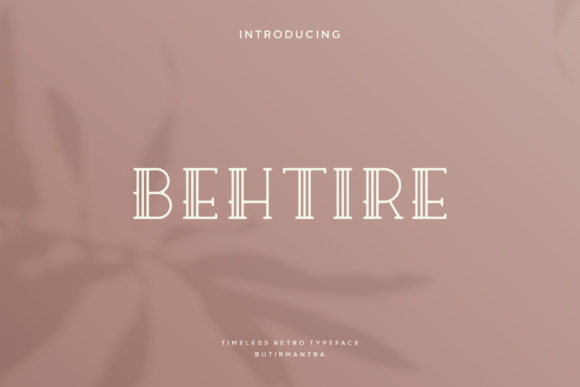
**Unleash the Timeless Charm of Behtire: A Classic Serif Font for Striking Designs**
In a world where fonts whisper unspoken tales, Behtire emerges as a timeless classic, a serif font that echoes the elegance of yesteryear while embracing the vibrancy of today. Its all-caps design captures the essence of tradition, evoking a sense of nostalgia and sophistication. With its clean lines, sharp serifs, and graceful curves, Behtire adds a touch of timeless charm to any project it adorns.
**Transport Your Designs to an Era of Timeless Beauty**
Behtire's unique blend of classic and contemporary elements makes it the perfect choice for creating logos that exude authority and sophistication. Its bold, commanding presence demands attention, ensuring your brand stands out from the crowd. Whether you're designing for a fashion label, a luxury boutique, or a corporate enterprise, Behtire's timeless appeal will leave a lasting impression.
Dive into the world of editorial design and let Behtire's elegant strokes elevate your magazines to new heights of refinement. Its crisp serifs and generous spacing create a visually harmonious experience, guiding readers effortlessly through your captivating stories. Unleash your creativity and craft captivating headlines that draw attention and leave a lingering impact.
**Elevate Your Branding to Unparalleled Heights**
As a business owner, you recognize the importance of a strong brand identity. Behtire provides the perfect foundation for creating logos that speak volumes about your company's values and aspirations. Its classic charm conveys a sense of tradition and stability, while its contemporary twist hints at a forward-thinking, innovative spirit. Whether you're a seasoned designer or a passionate entrepreneur, Behtire empowers you to create a brand identity that resonates with your audience and sets you apart from the competition.
**Embrace the Art of Personal Expression**
Behtire's versatility extends far beyond the realm of branding and editorial design. As a font, it is a blank canvas for your creativity, an invitation to express your individuality. Create stunning posters that capture the essence of your passions, design eye-catching social media graphics that demand attention, or craft personalized invitations that leave a lasting impression. With Behtire, the possibilities are limitless.
**Experience the Magic of Behtire Today**
Behtire is more than just a font; it's a gateway to a world of creative possibilities. Its timeless appeal and captivating presence will elevate your designs to new heights, leaving a lasting impression on your audience. Embrace the allure of Behtire today and embark on a journey of visual storytelling that transcends time and captures hearts.